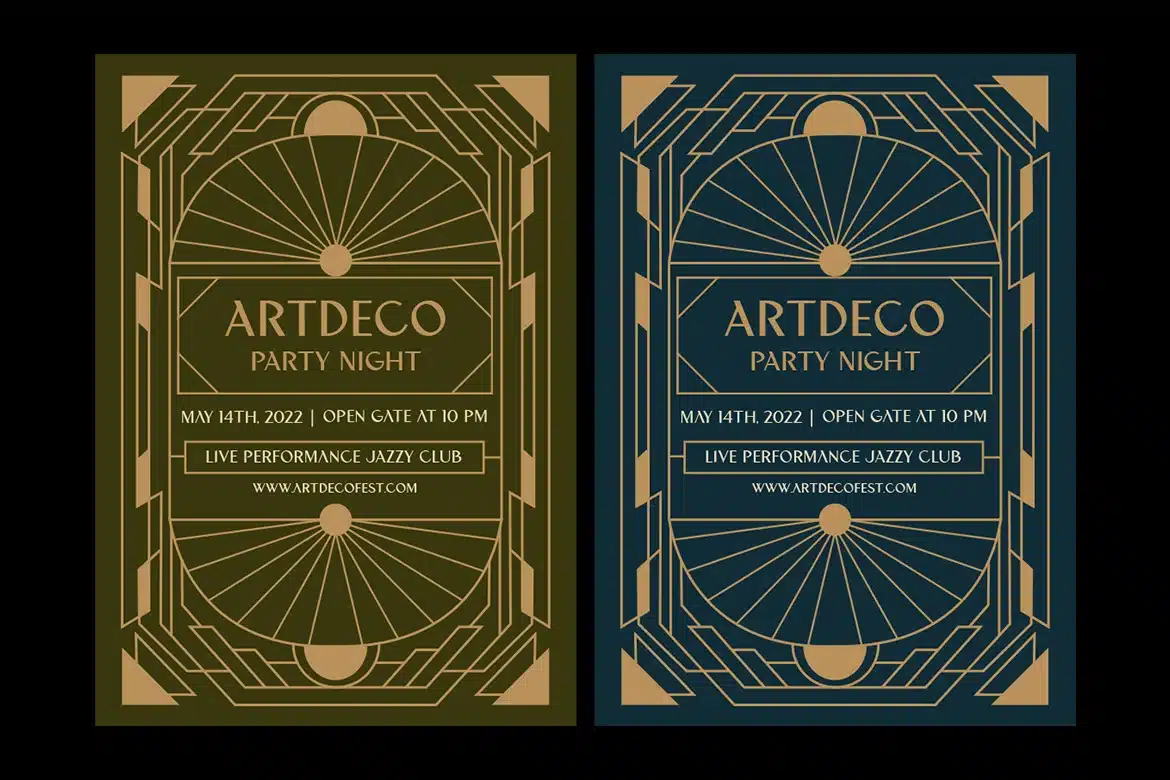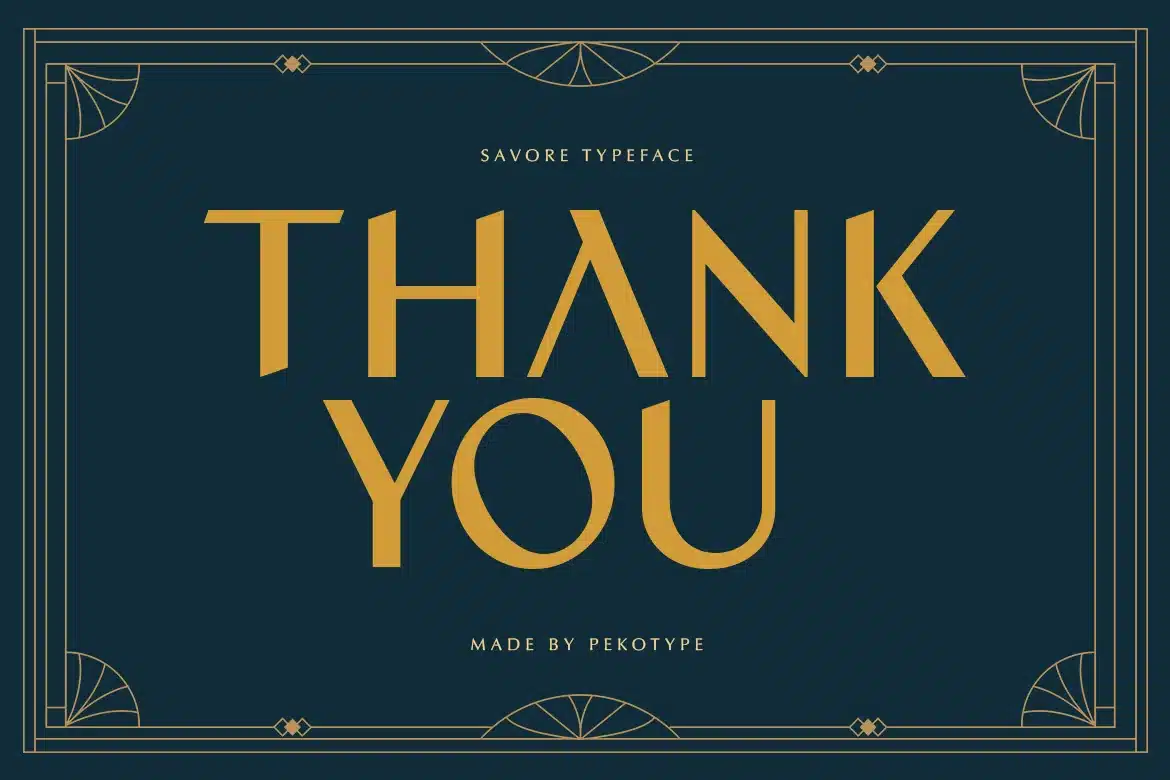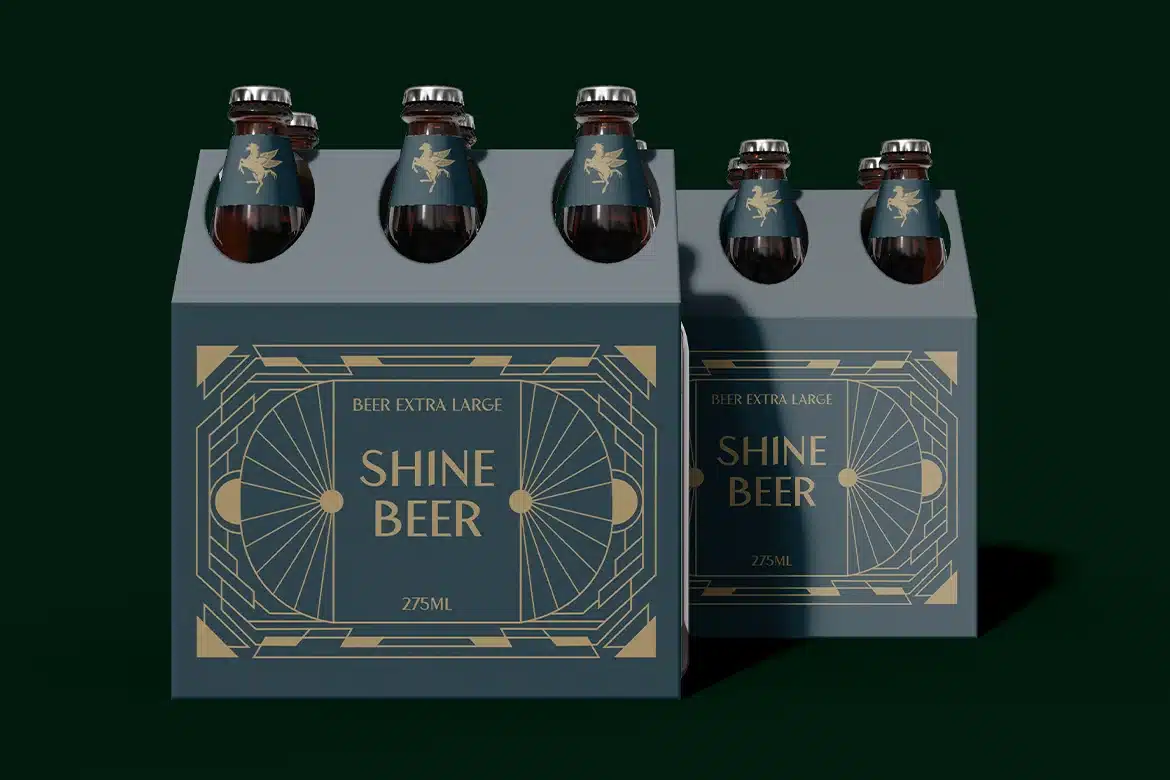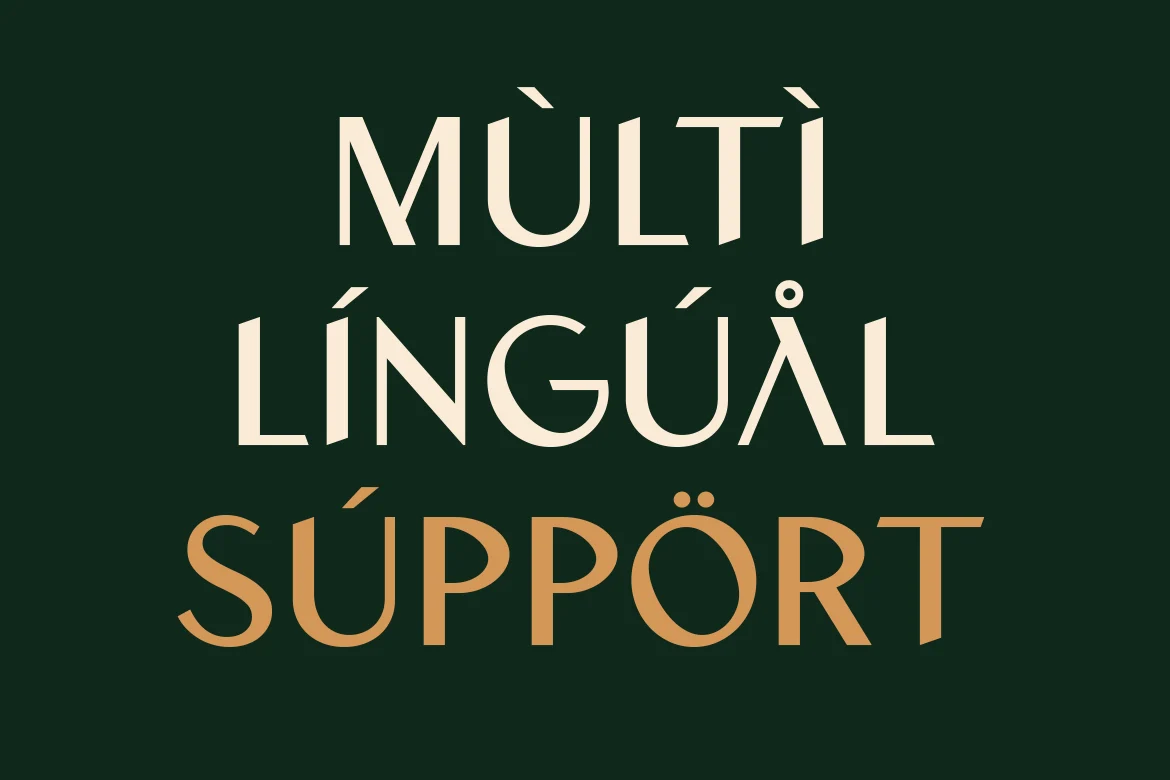
Savore – Elegant Modern Logo Font
SAVORE is a modern luxury display font inspired by Art Deco style. The letterforms are clean, geometric, and slightly decorative, giving it a classy and premium look without feeling too heavy. It has a strong visual presence with elegant shapes that make every word look stylish and timeless. With uppercase, numbers, symbols, and multilingual support, SAVORE is easy to use for many high-end design projects.
This font is perfect for luxury branding, fashion labels, hotels, wedding designs, packaging, and logo design. It works beautifully for invitations, product labels, social media content, and premium brand visuals—just like the preview with elegant layouts, packaging, and signage. If you want a font that feels modern, stylish, and exclusive, SAVORE is a great choice.
- All Caps
- Number, Symbol, & Punctuation